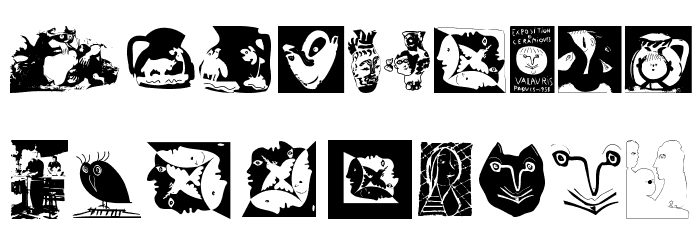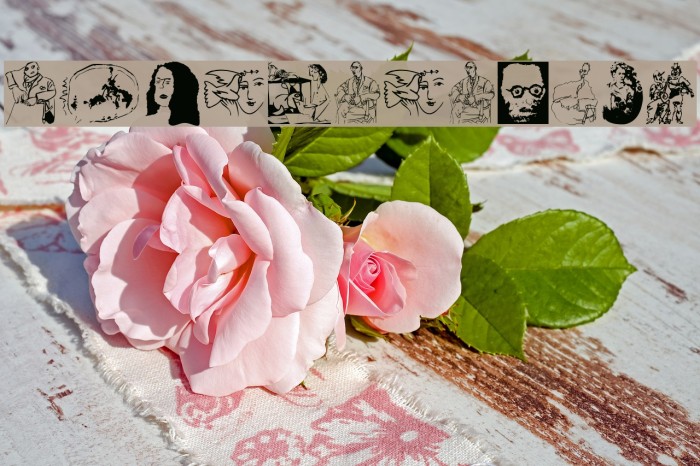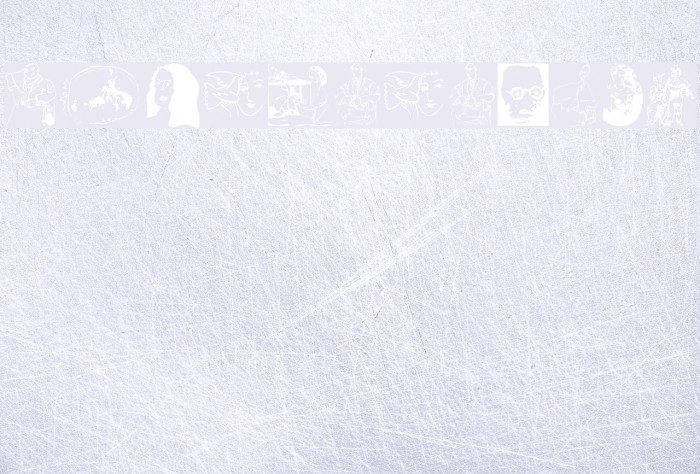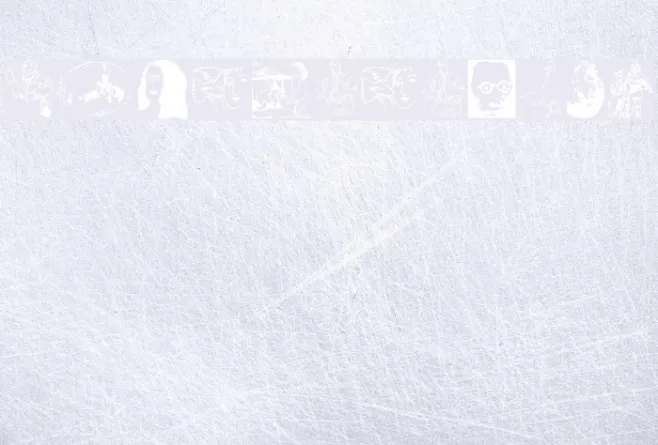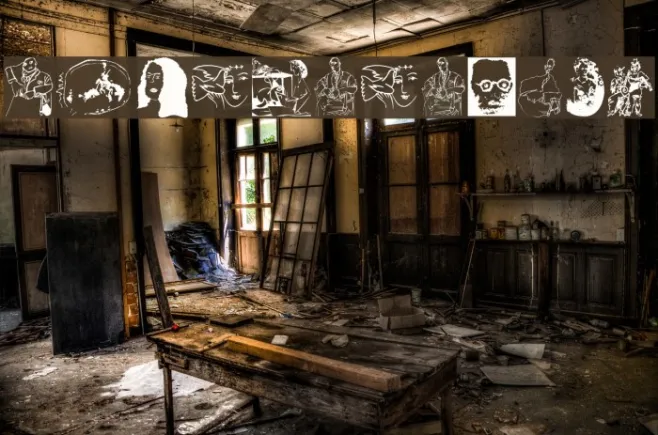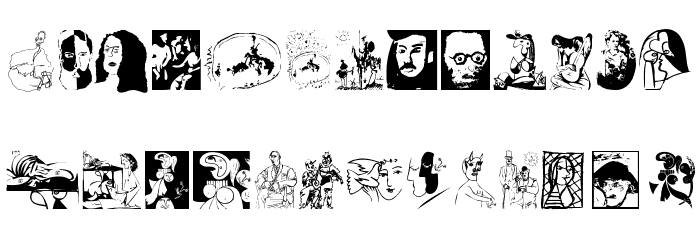
Vectortrials Font
Highly artistic and abstract letterforms, each character illustrated with expressive, sketch-like black and white drawings. The glyphs are unique, with each letter or symbol depicted as a miniature artwork, often featuring faces, figures, or surreal scenes. The overall impression is eclectic and visually rich, prioritizing creativity over legibility.
| Overall Style | Decorative, Artistic, Abstract |
| Use Case | Logos, Headlines, Art projects, Posters |
| Proposed Projects | Art posters, album covers, gallery invitations, experimental branding, editorial illustrations. |